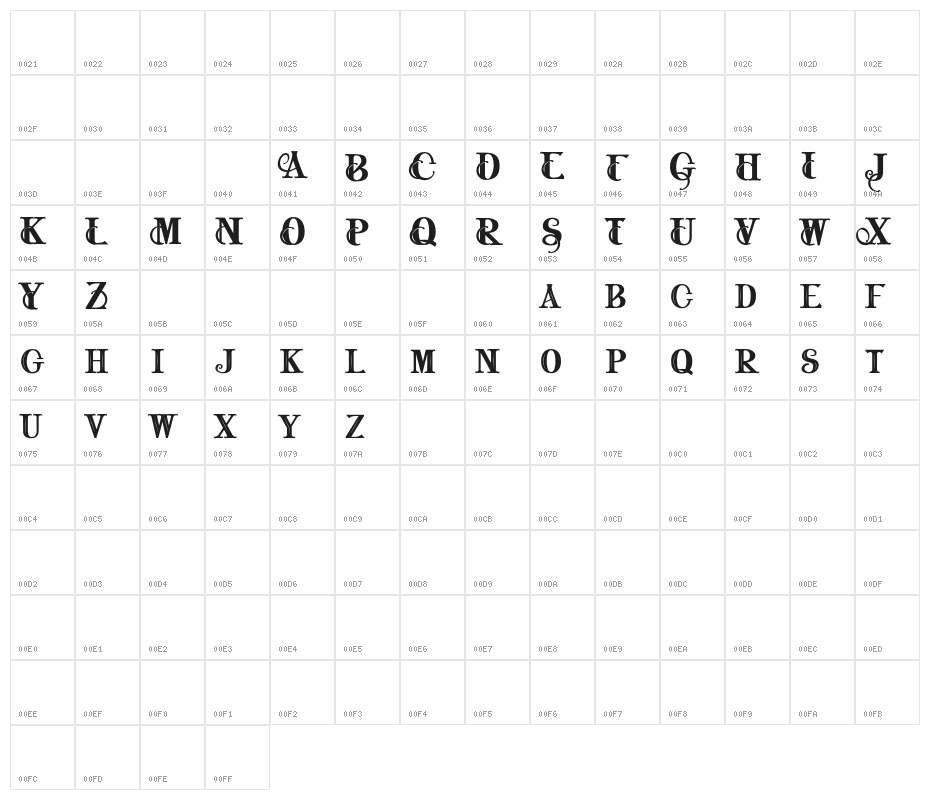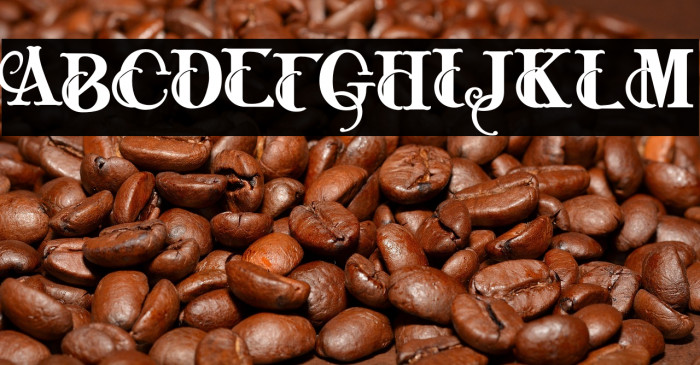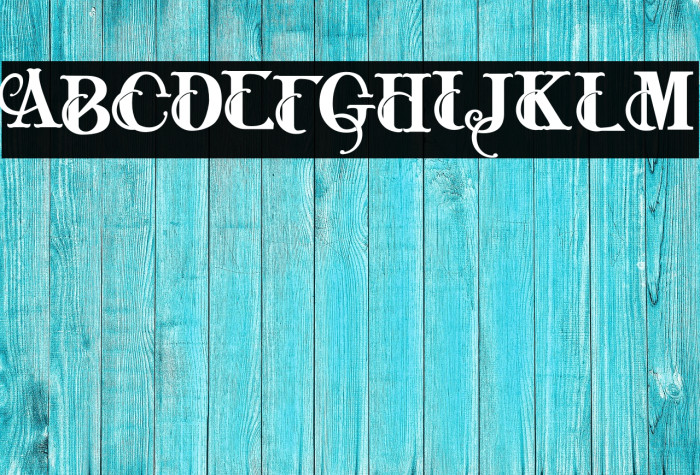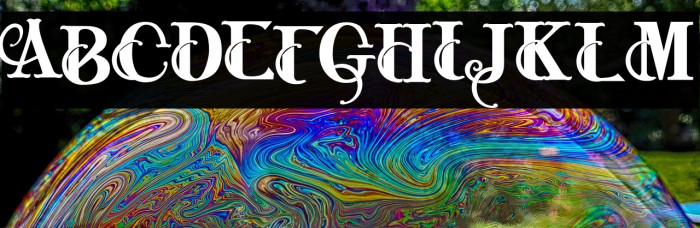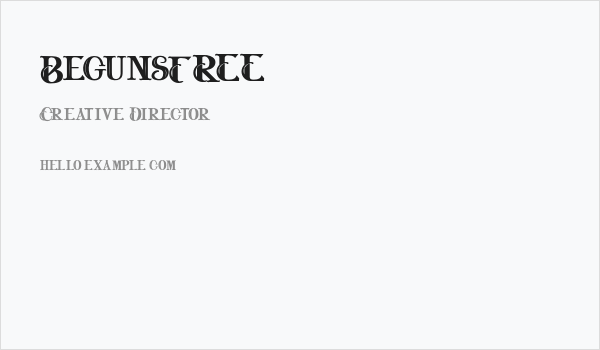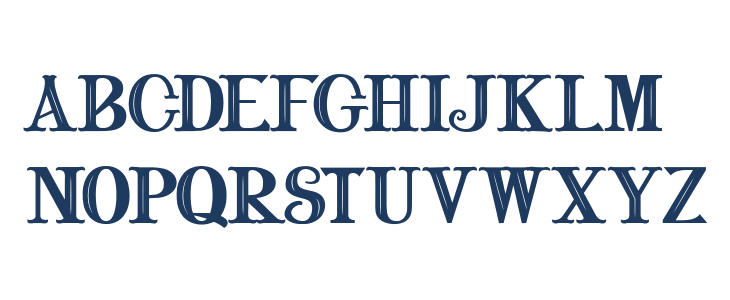
BegunsFREE Font
This font features a bold and decorative style with intricate swirls and flourishes integrated into the letterforms. The uppercase letters are particularly ornate, with each character exhibiting unique embellishments that add a sense of elegance and sophistication. The overall design is reminiscent of vintage or Victorian-era typography, making it ideal for projects that require a touch of classic charm. The font maintains a consistent weight throughout, ensuring readability despite its decorative elements. The spacing between characters is normal, allowing for clear legibility while still showcasing the detailed design.
| Overall Style | Vintage |
| Use Case | Headlines, Logos, Invitations |
| Proposed Projects | Ideal for wedding invitations, vintage posters, branding for luxury products, and decorative headlines. |